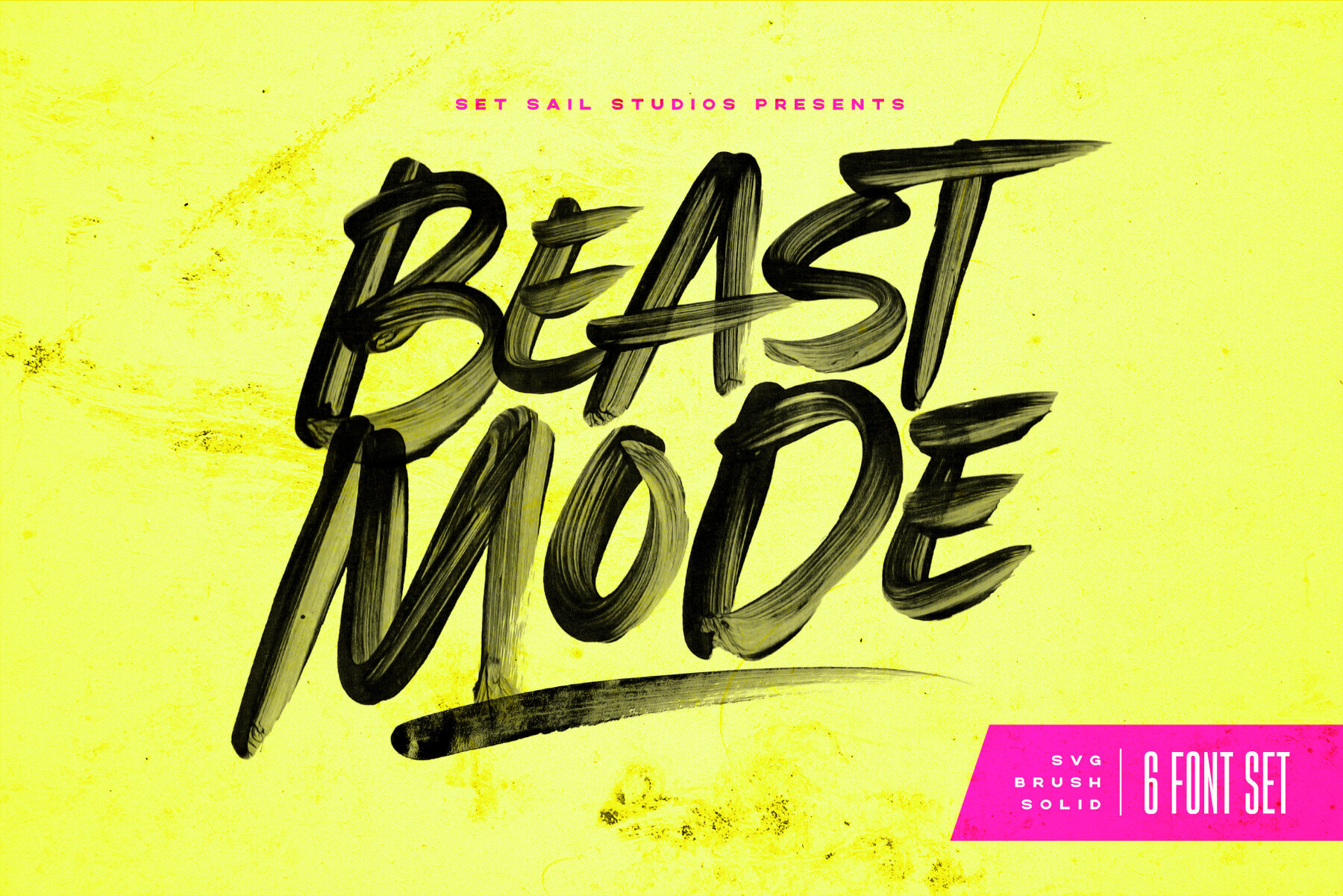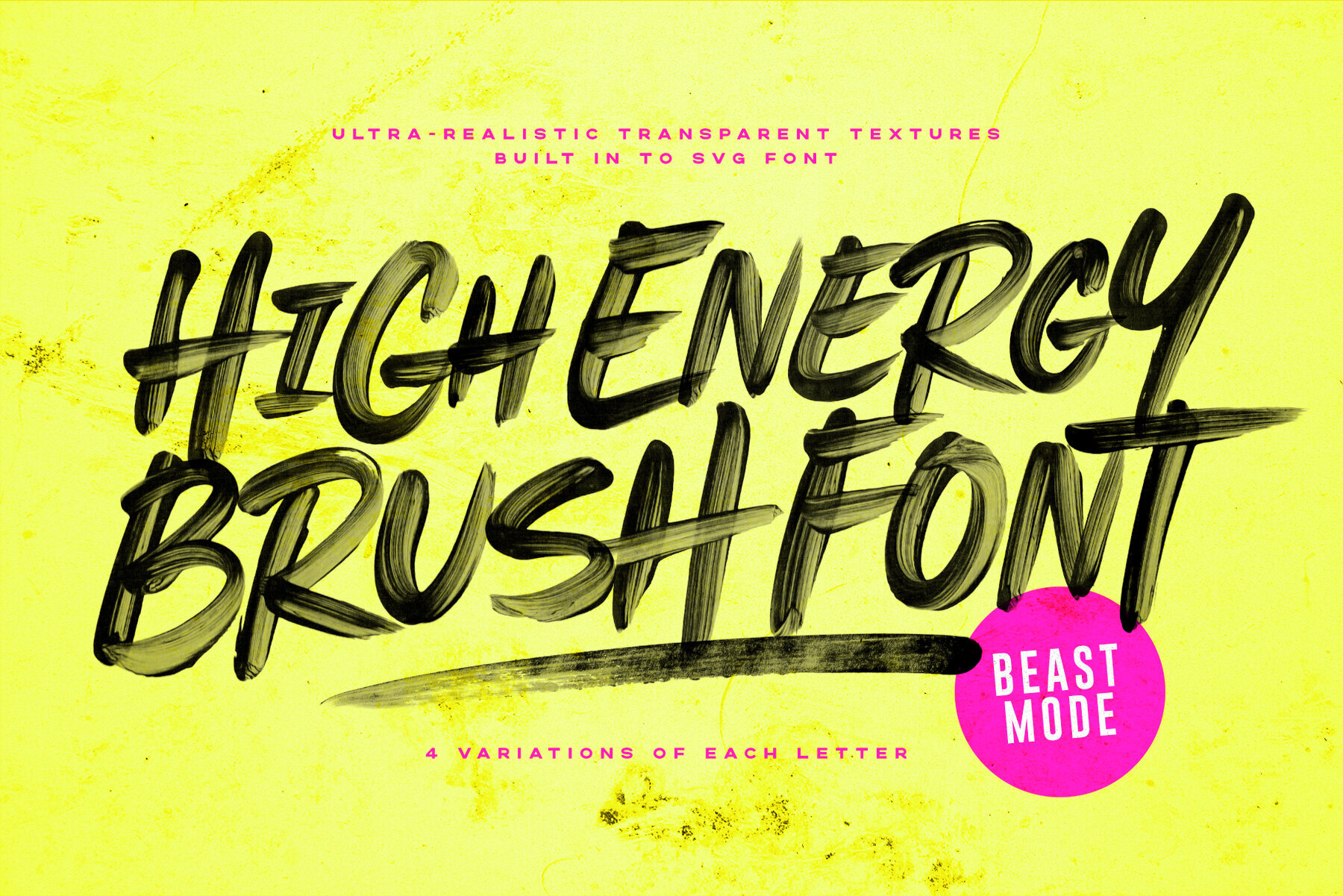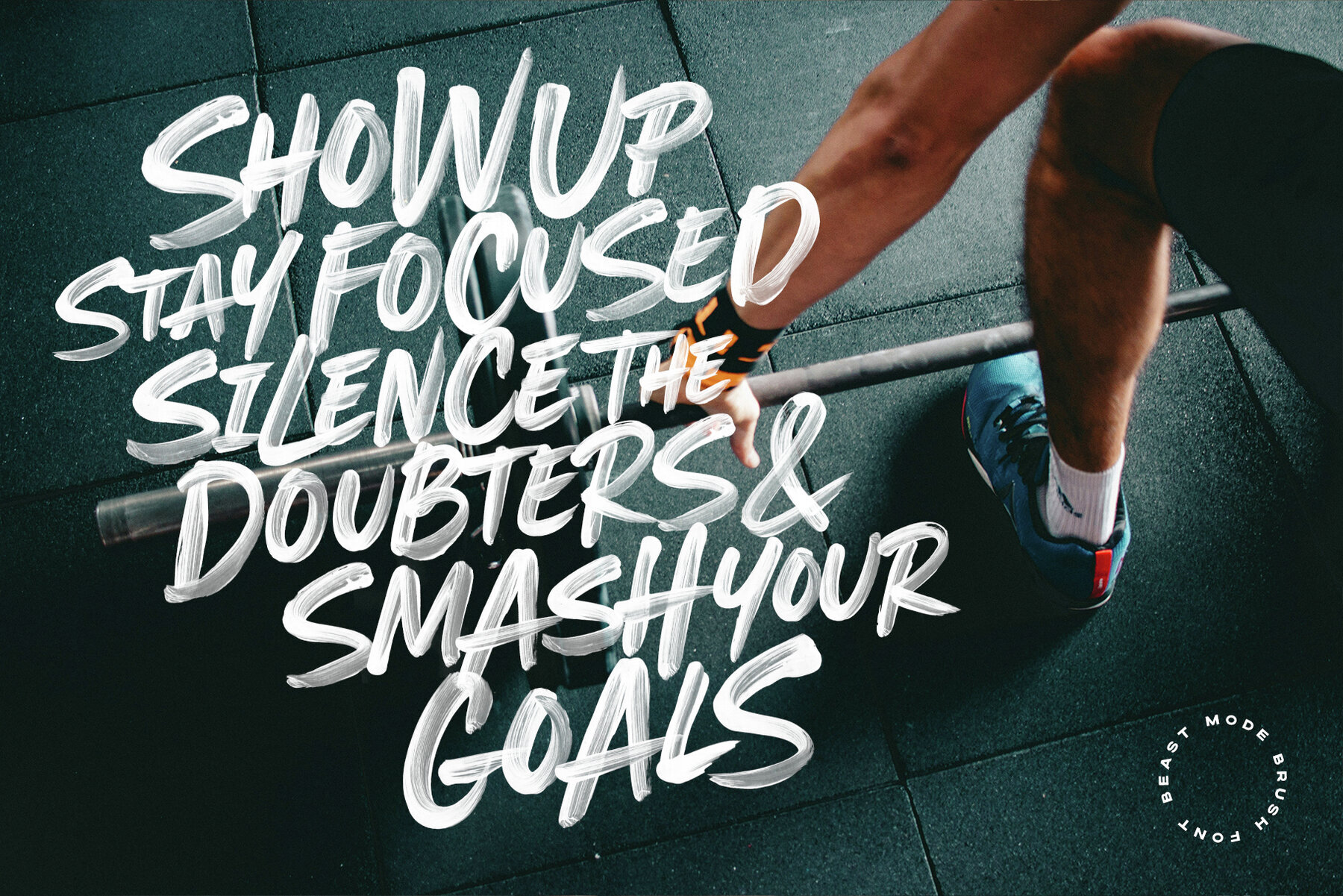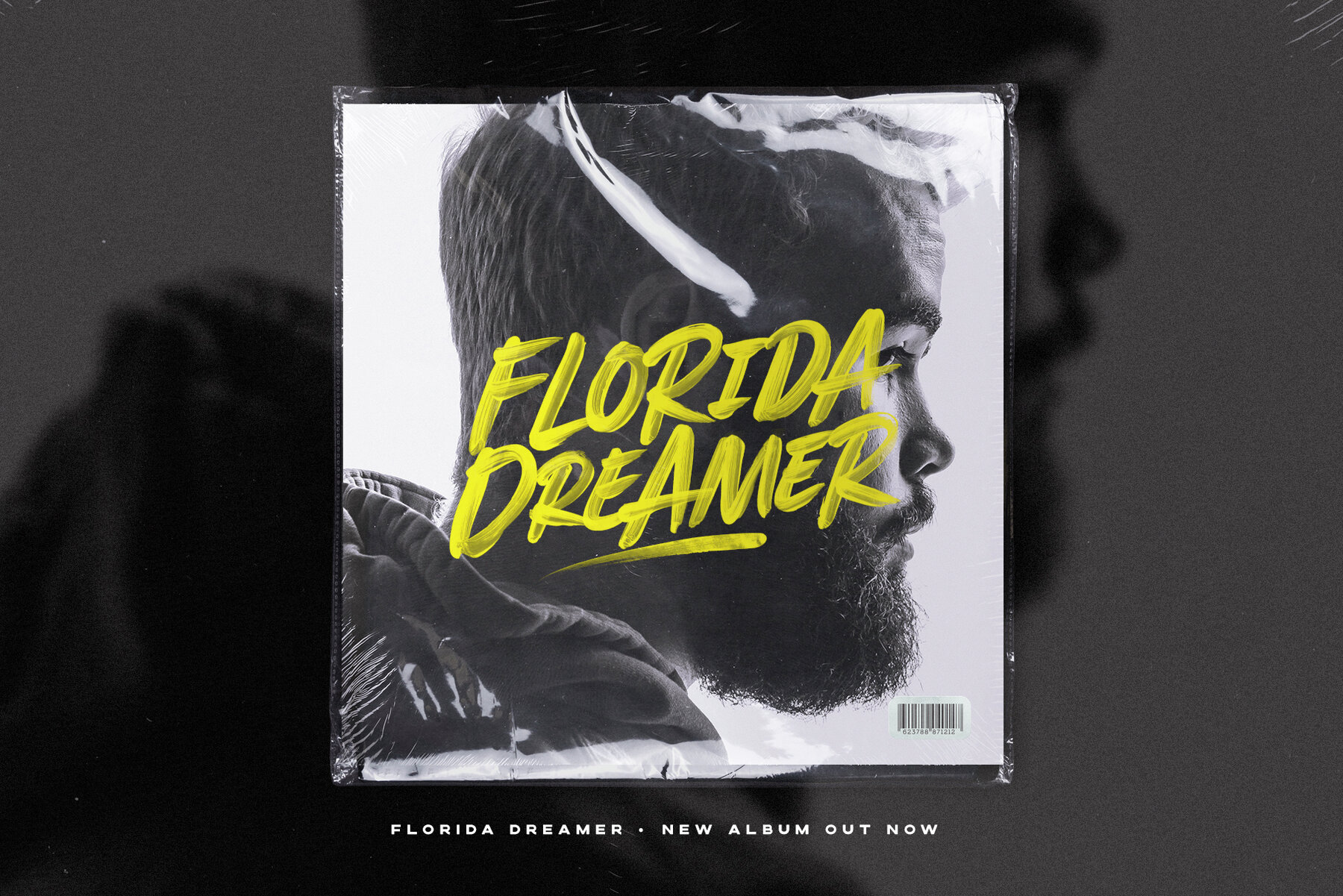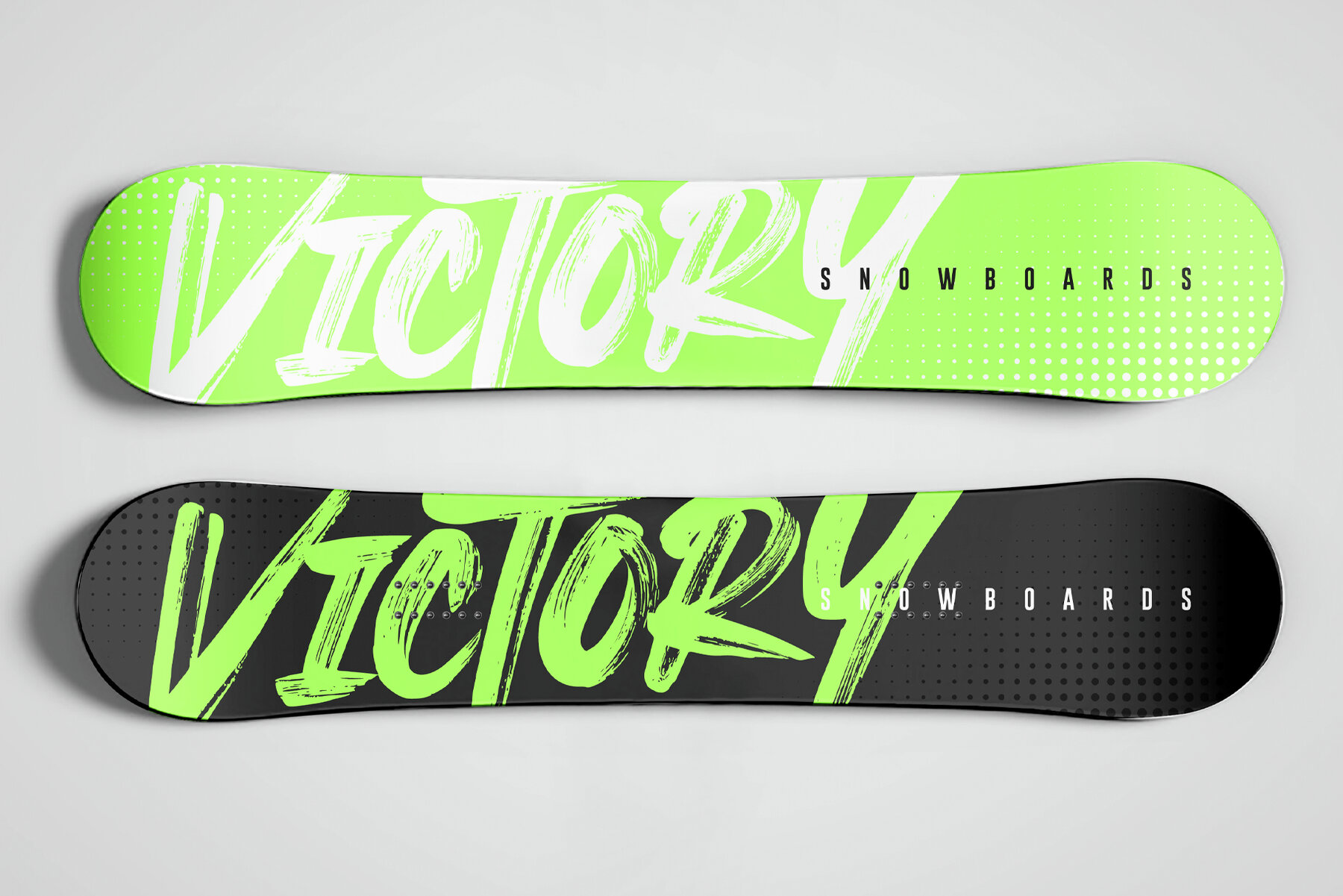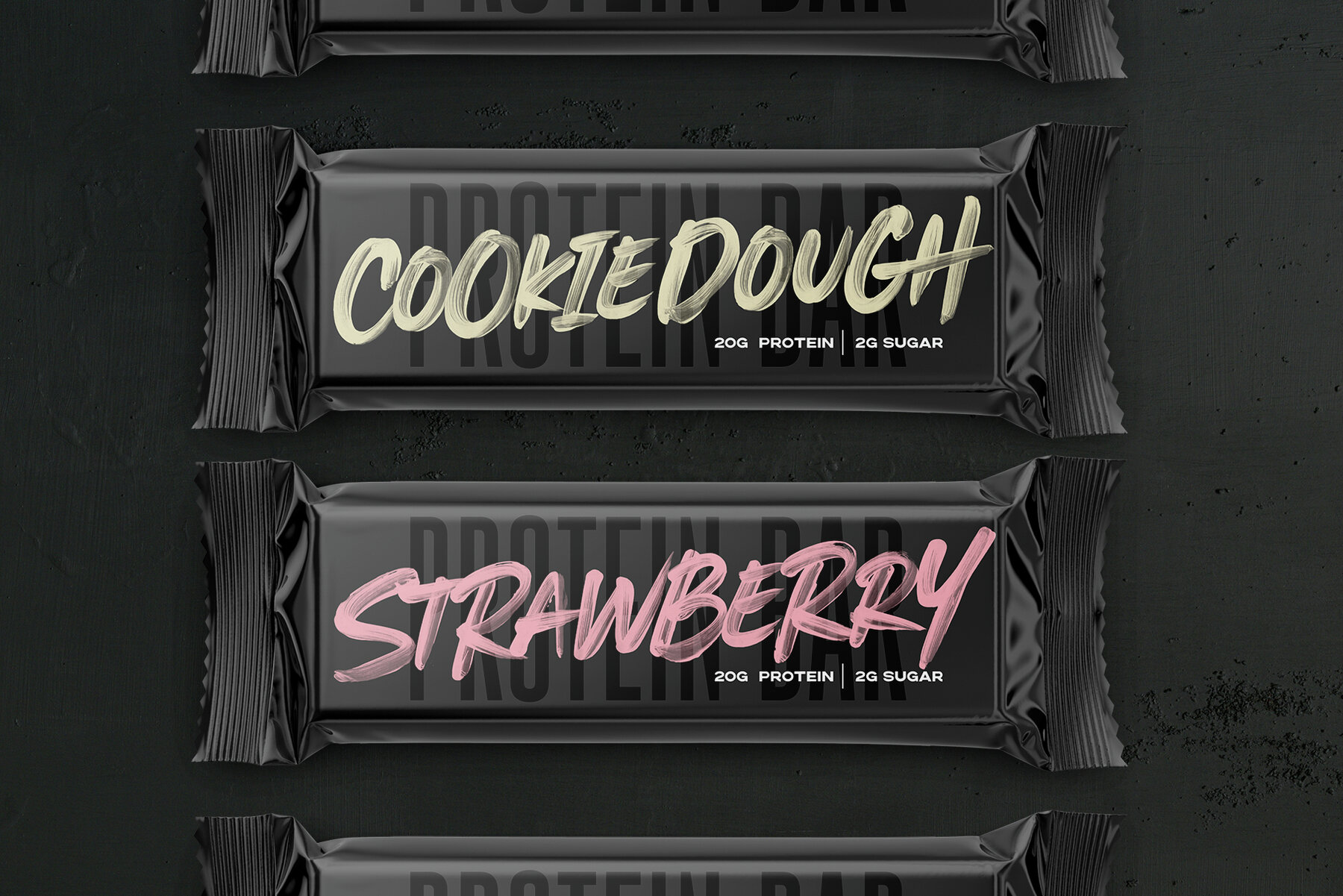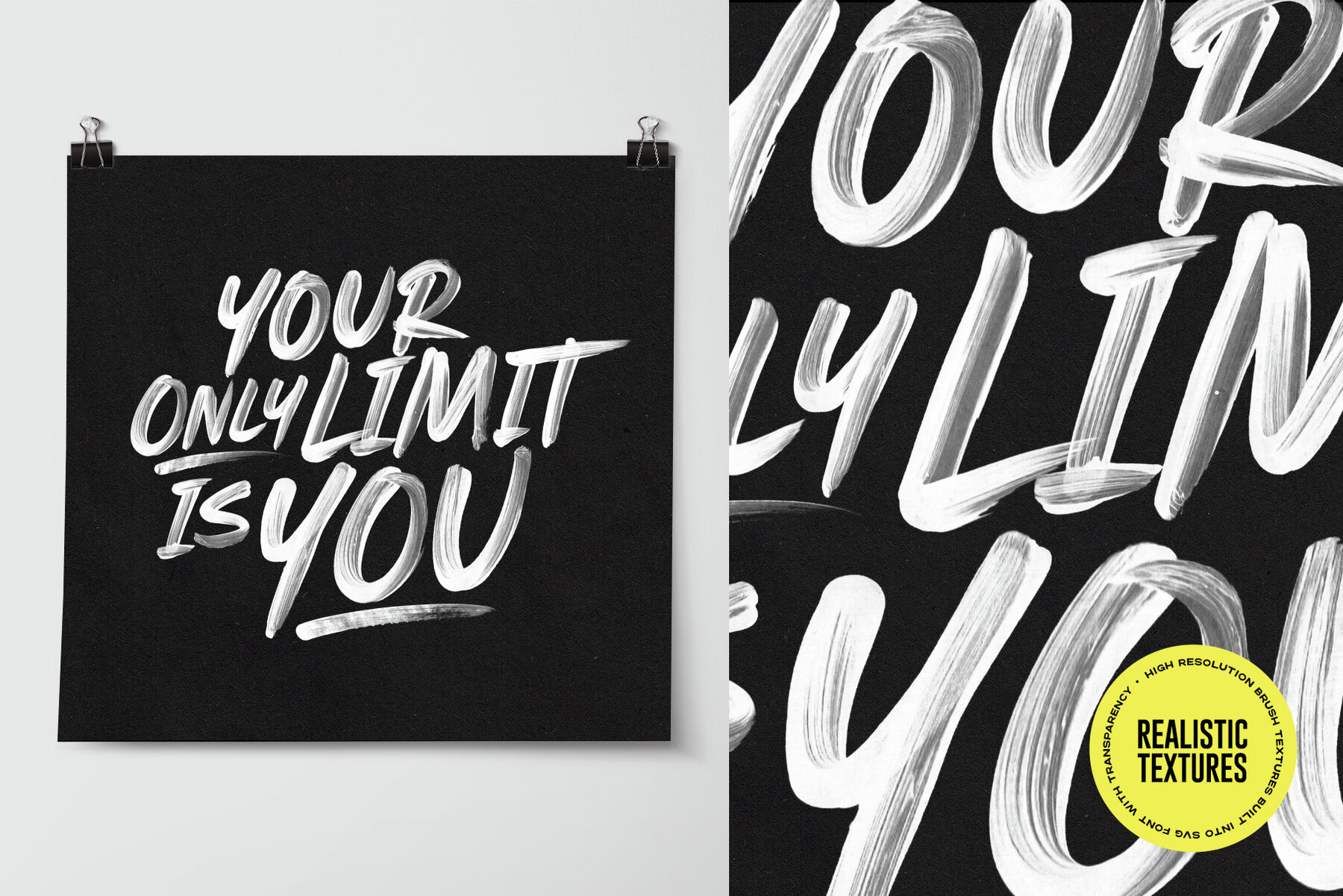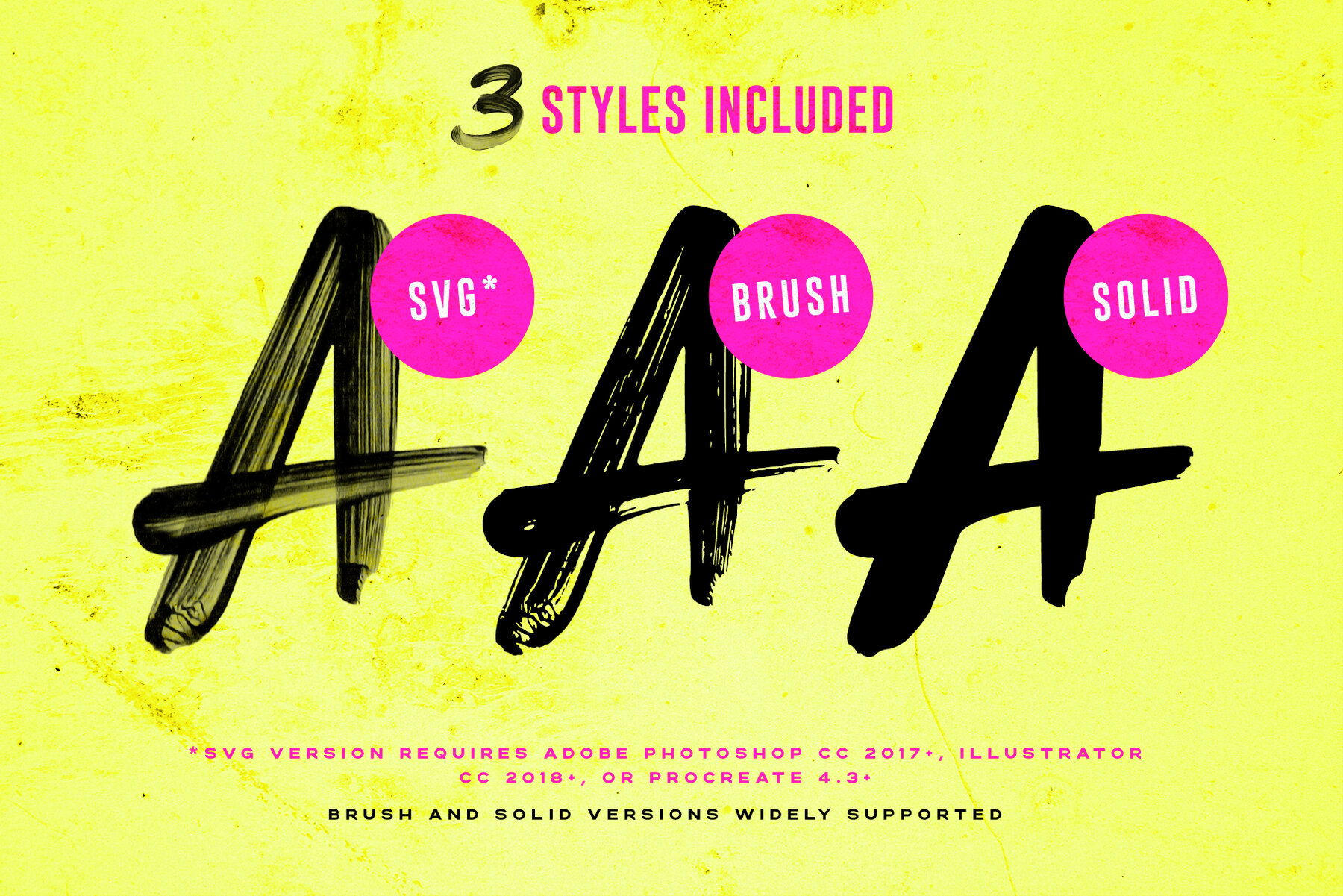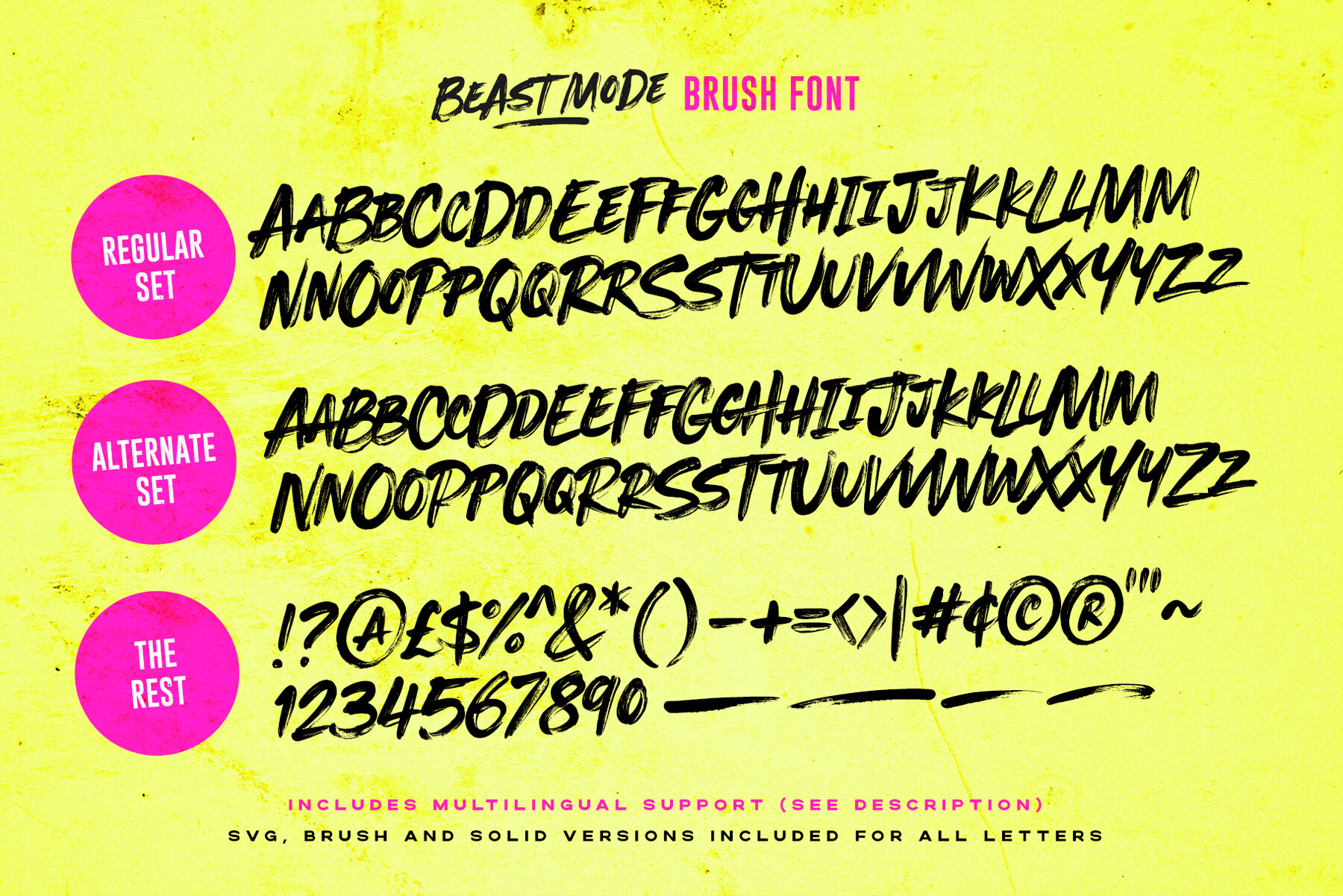
Beast Mode SVG Font
Please note: The SVG versions require Photoshop CC 2017, Illustrator CC 2018, or Procreate 4.3 (or newer) to use. However ‘Brush’ and ‘Solid’ versions are also included in a traditional font format which are widely supported (see images). Looking to inject some energy into your typography? It’s time to unleash Beast Mode—A bold & brazen, all-caps brush font ready to make its mark. Hand painted with a real paintbrush and acrylic paint, this exciting set of fonts has incredibly realistic paint textures totally built in to the font in the SVG version as a transparency. Beast Mode includes 2 full sets of ‘uppercase’ (bigger caps) and ‘lowercase’ (smaller caps) characters, giving you 4 variations of each letter for different layout and customisation options (try mixing them all up!). These Regular and Alternate sets are included in SVG, Brush, and Solid variations of the paintbrush texture – giving you a total of six fonts to experiment with; Beast Mode SVG Language Support • Is provided in the Brush & Solid versions for the following languages; English, French, Italian, Spanish, Portuguese, German, Swedish, Norwegian, Danish, Dutch, Finnish, Indonesian, Malay, Hungarian, Polish, Croatian, Turkish, Romanian, Czech, Latvian, Lithuanian, Slovak, Slovenian. The SVG font contains the following accents which can be manually typed and added to your letters; ¨ ˜ ´ ˆ ` ˚ ˘ ˛ ¸